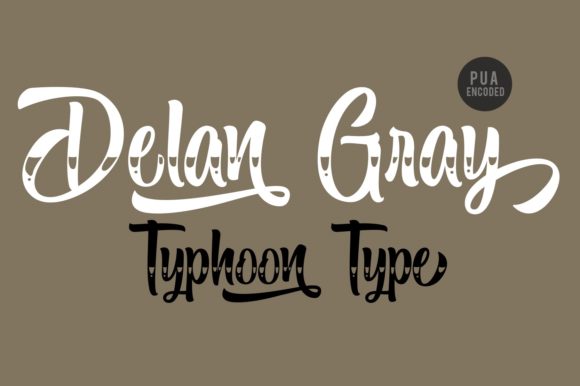
Introduction to Delan Gray Font Font
Fonts play a crucial role in design, and the Delan Gray Font font is a typeface that brings both character and versatility to any project. Whether you’re working on a branding project, a website, or a print design, the Delan Gray Font font offers a unique style that can elevate your work.
| 👤 Author | Typhoon Type™ – Suthi Srisopha |
Delan Gray is a beautiful flowing handwritten font with a stylish appeal.
It will add a wonderful touch to any crafting project .
Key Features of Delan Gray Font Font
Why Choose Delan Gray Font Font?
The Delan Gray Font font is more than just a typeface – it’s a design tool that helps you communicate your message with style and clarity. Its unique character set and versatile design make it suitable for a wide range of applications, from elegant invitations to bold headlines.
With its carefully crafted letterforms and balanced proportions, the Delan Gray Font font ensures readability and visual appeal across all mediums.
What makes Delan Gray Font font special?
The Delan Gray Font font stands out with its unique design, exceptional readability, and versatility across various design applications.